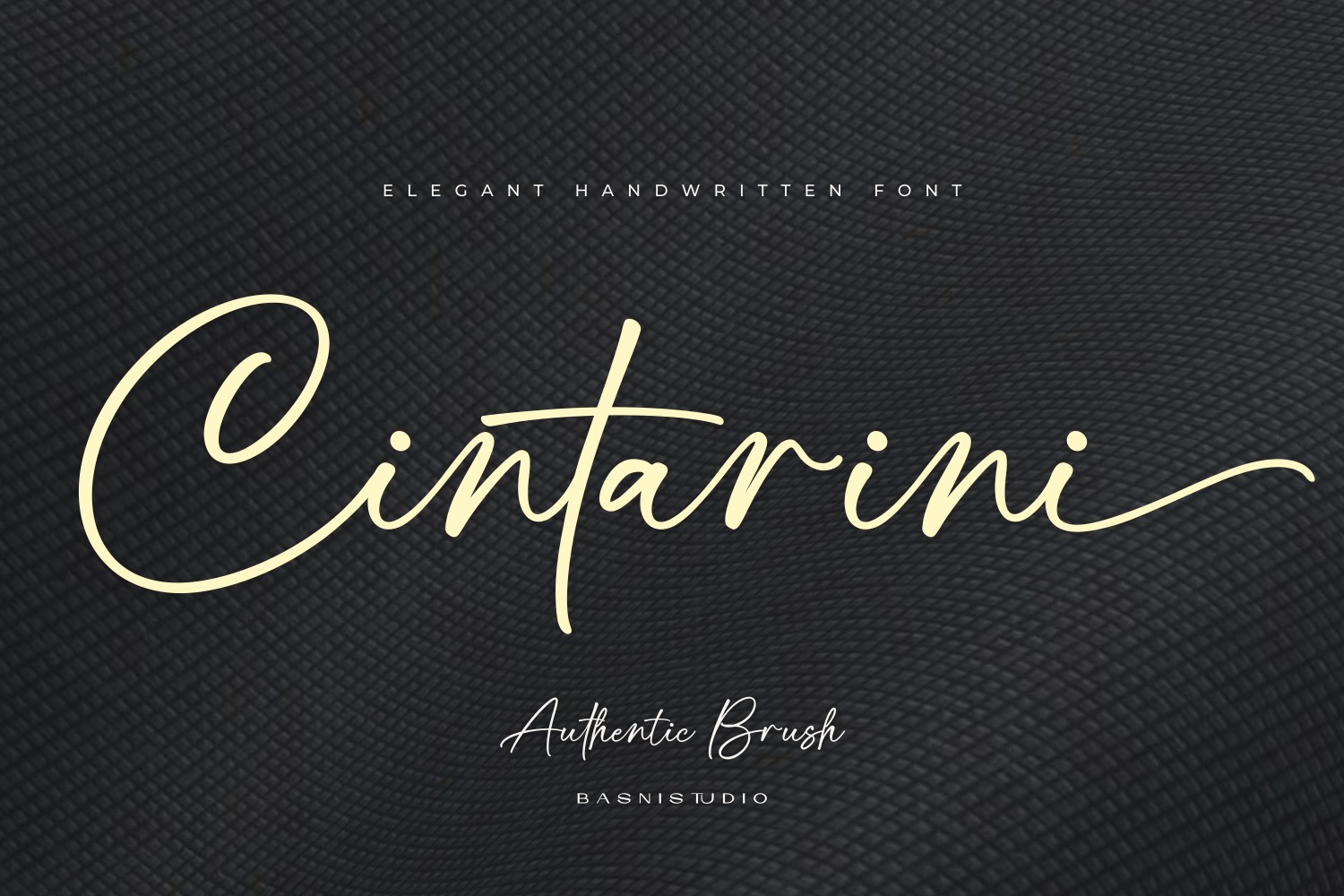
Cintarini Font
Cintarini Font is a versatile font designed to adapt beautifully across different design styles, offering dependable readability and balance. Cintarini, an Flawless handwritten font crafted with authentic Brush for Natural & Casual touch for everything from branding and social media to invitations and packaging.
Elegant & Casual – Perfect for tagline, quotes, greeting cards, and more
Authentic Handwritten Feel – Created with authentic Brush for Natural & Casual
Whether you’re building a powerful brand identity or crafting a standout design,
Cintarini a Handwritting Font Created with authentic Brush for Natural & Casual look gives you the creative edge you need.